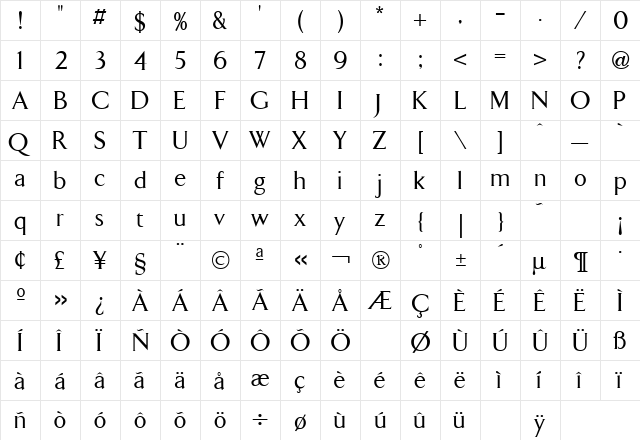
Arrow Regular
Design Context for Arrow Typeface
Arrow takes a measured approach to typography — its balanced proportions and neutral character make it a reliable workhorse for both digital and print work.